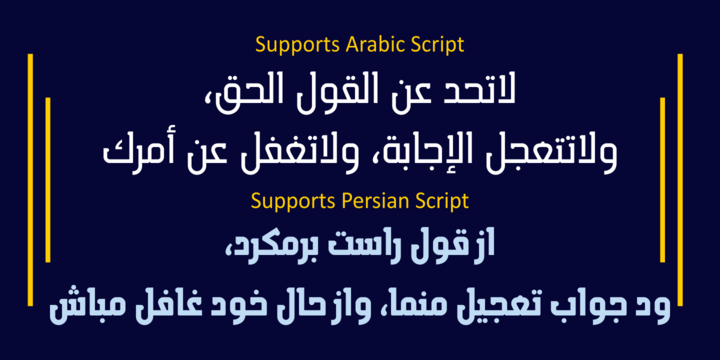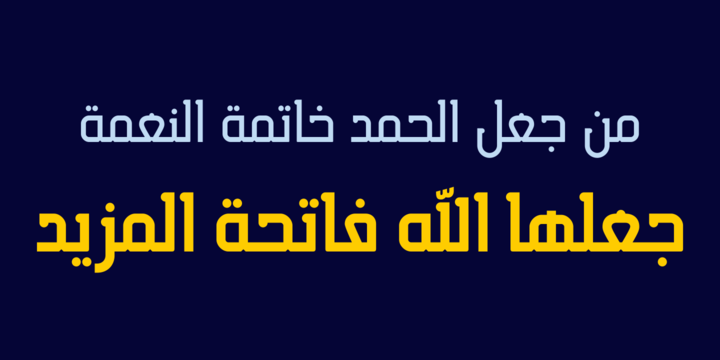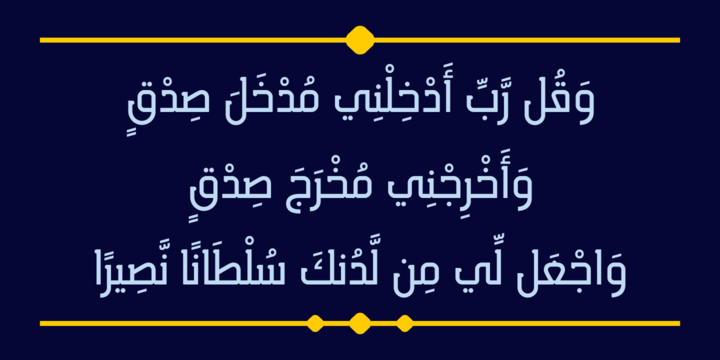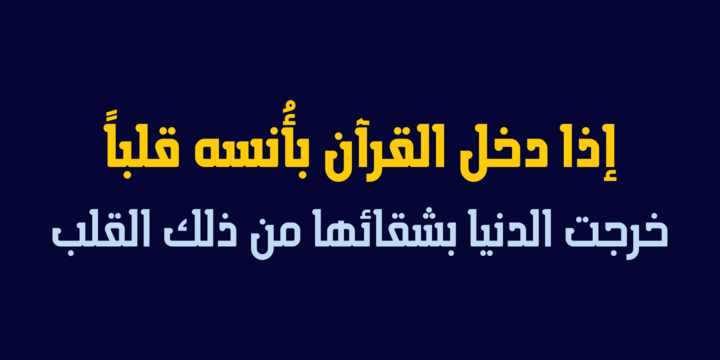
HS Almisk Serif is a display typeface. It can be used for titles and graphic projects, which support Arabic and. It has been created based on modern kufi style. It enjoys flexibility between sharp and curved lines in the structure of characters. This supports with a beautiful appearance and wonderful geometric structure. It based on HS Almisk typeface with a serif on some of its characters. (5) Weights has been created for this typeface between the Light weight and Black weight.
This typeface with its diversity of (5) weights is intended to be an attempt for a good addition to Arabic typography.